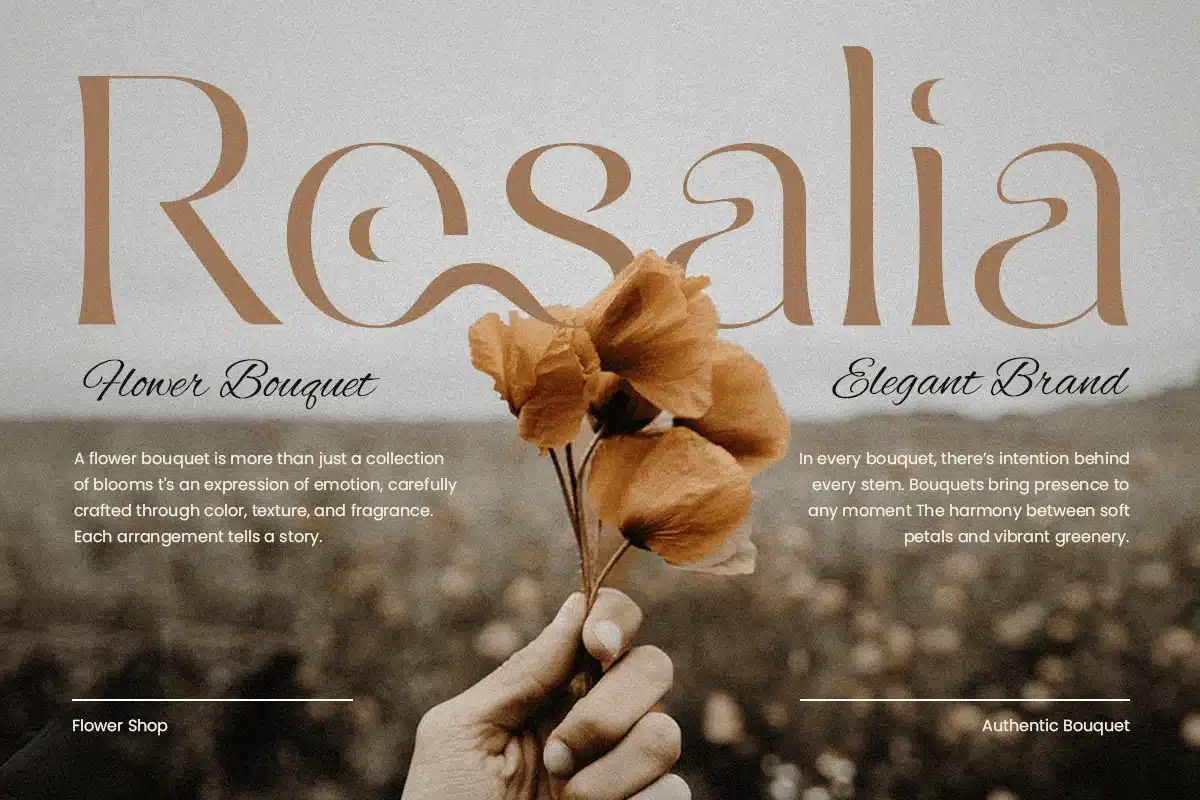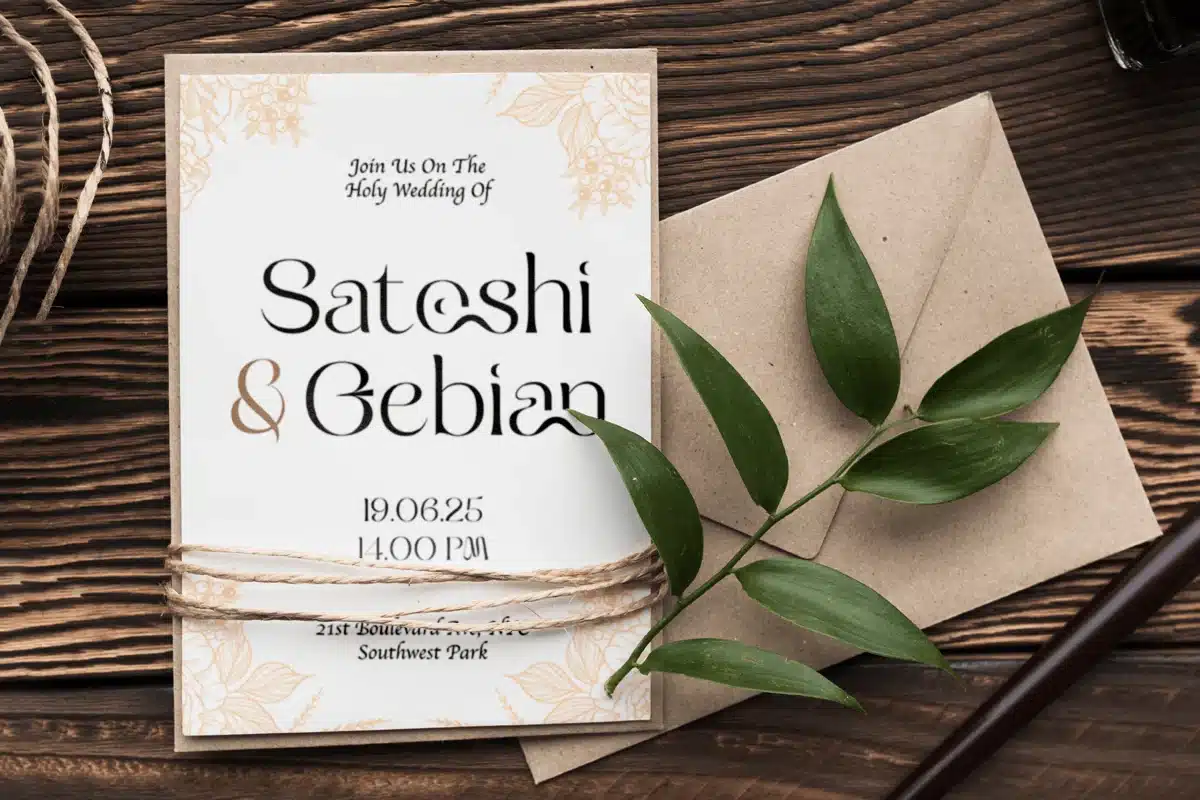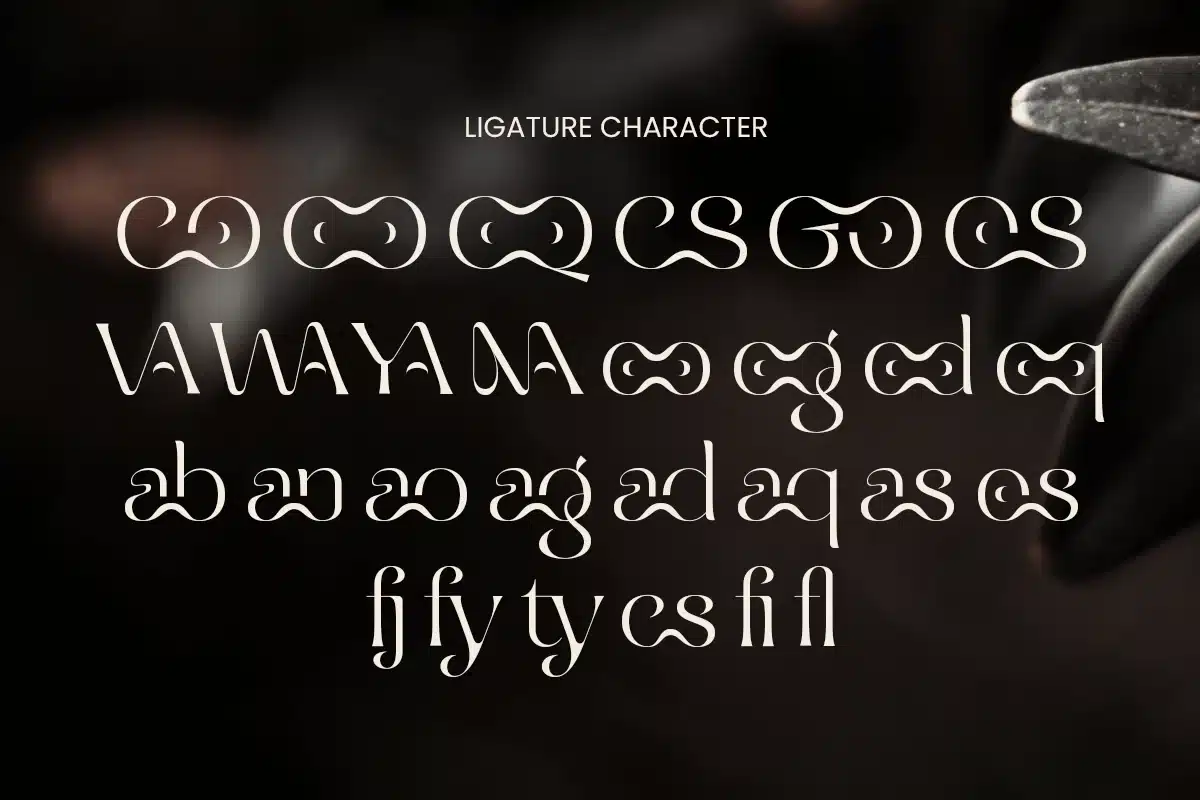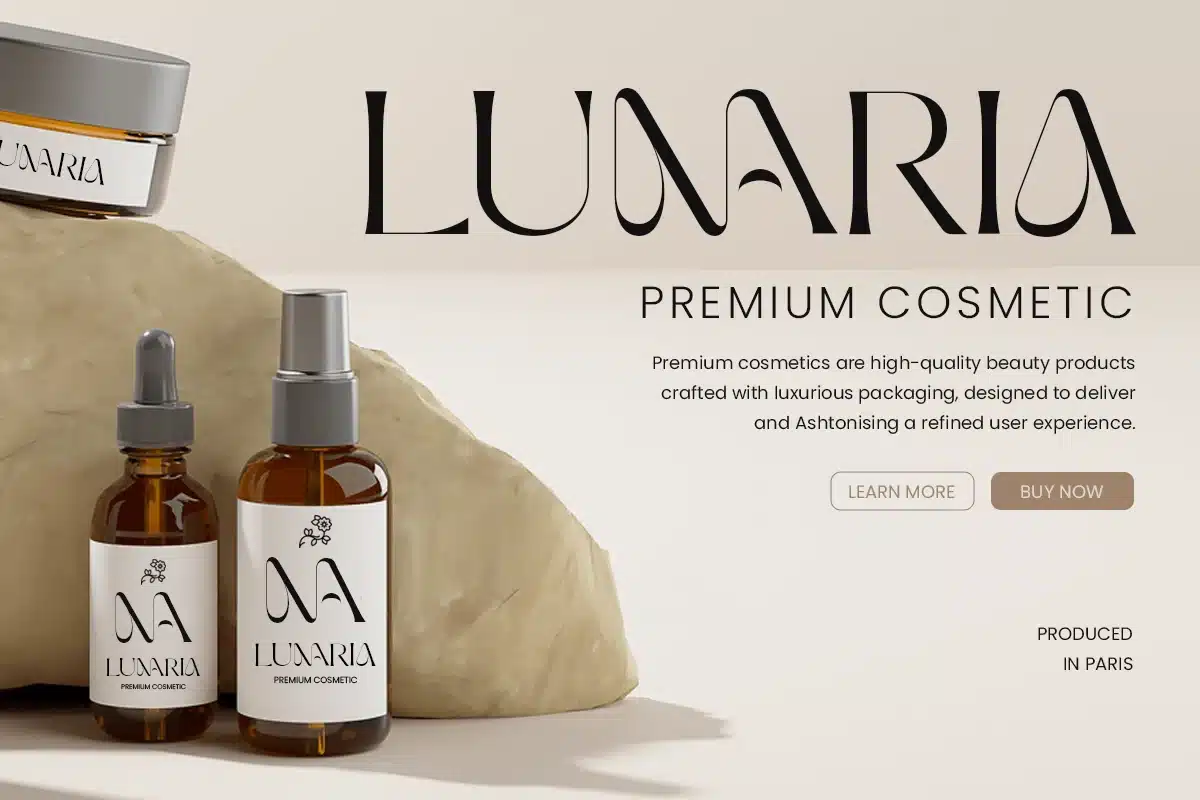
Moon – Cinematic Branding Logo Font
MOON is a cinematic branding logo font that combines elegance with cinematic charm. Perfect for high-end logos, film titles, luxury branding, and sophisticated design projects, MOON features graceful letterforms and professional serifs that bring refinement to any creative endeavor.
Whether youβre designing a logo for a film studio, a luxury brand, or a prestigious event, MOON adds a timeless touch to your brand. Inspired by the elegance of cinema, this font creates memorable and visually striking designs for businesses that aim to stand out with a polished, luxurious image.
MOON β Cinematic Branding Logo Font Features
- Elegant serif letterforms with a cinematic, refined touch
- Ideal for high-end logos, branding, and film titles
- Includes uppercase, lowercase, numerals, and punctuation
- Classic, professional design with a timeless appeal
- OpenType features for advanced typographic control
Multilingual support for
Create a lasting impression with MOON β the perfect font for cinematic branding and luxurious logos. ππ¬